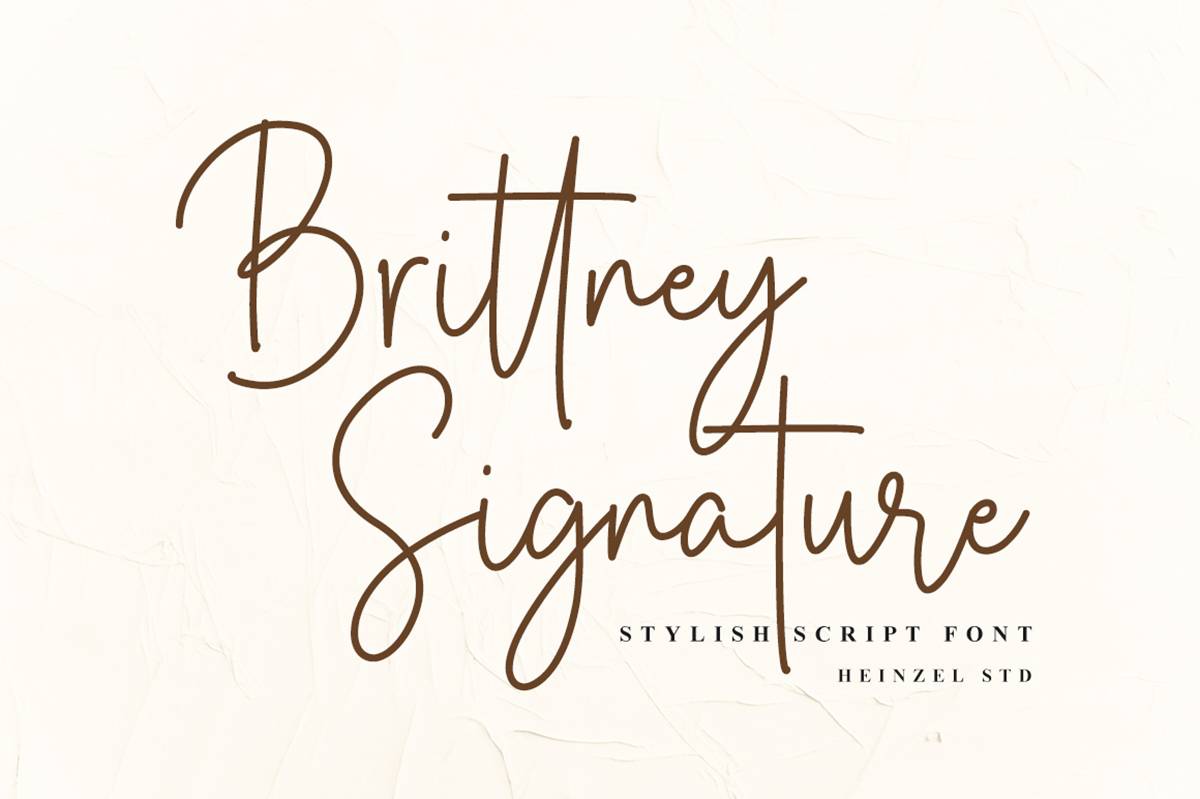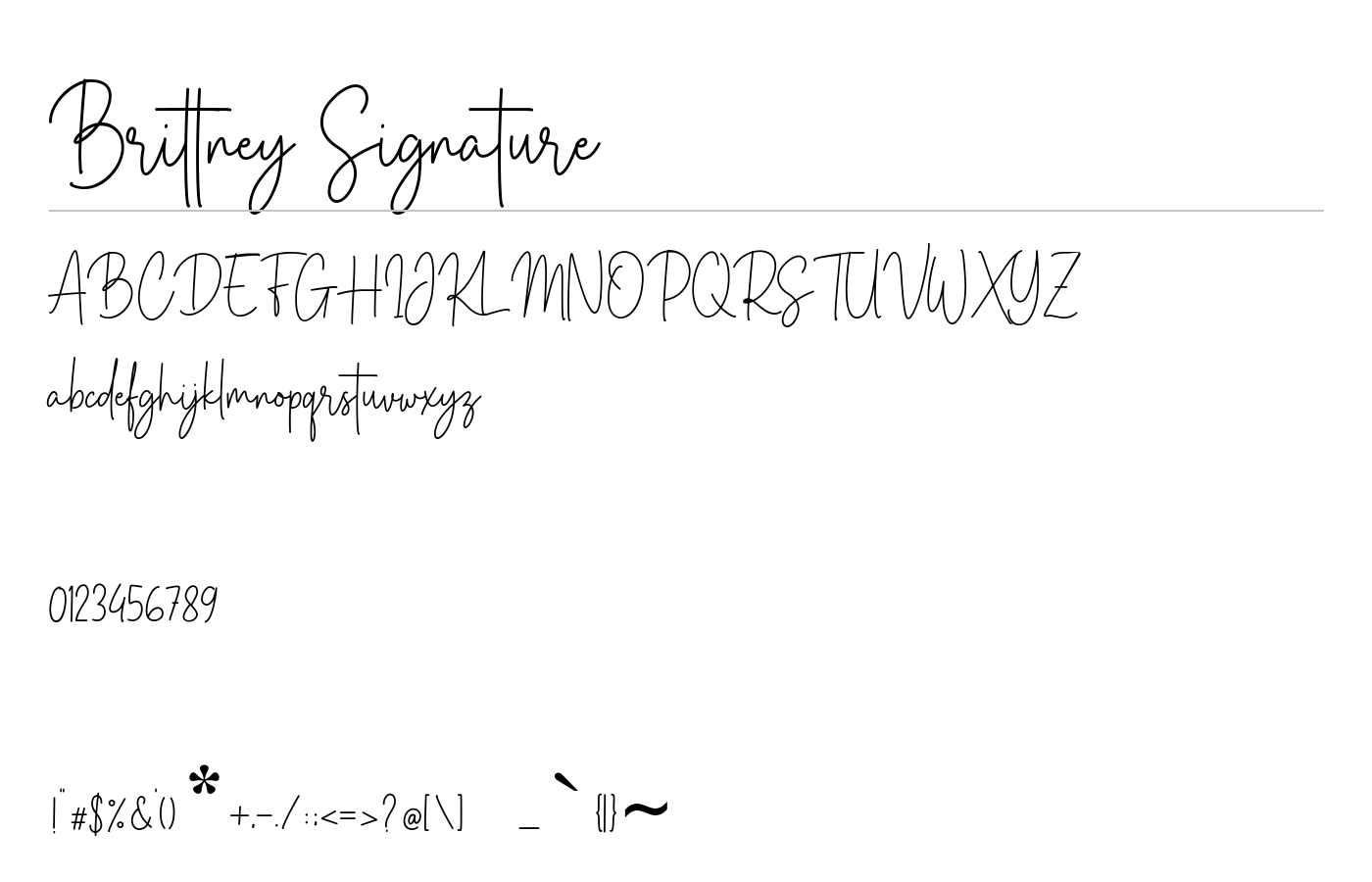
Brittney Signature is a delicate, handwritten script font with a light weight and tall, narrow letterforms that give it an elegant and personal feel. Its thin strokes and slightly playful yet refined style make it perfect for branding, invitations, and lifestyle projects where a modern, sophisticated touch is desired. This font works well in designs that aim to convey authenticity and a stylish, approachable personality.
Brittney Signature Font
About Brittney Signature Font
| Designer | Nofi Sofyan Hadi |